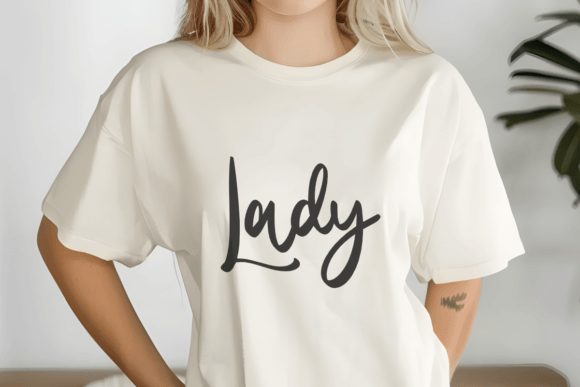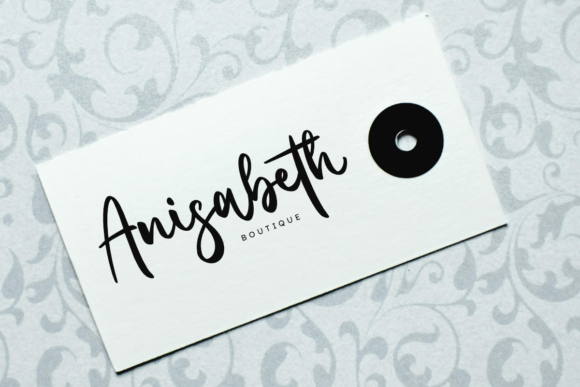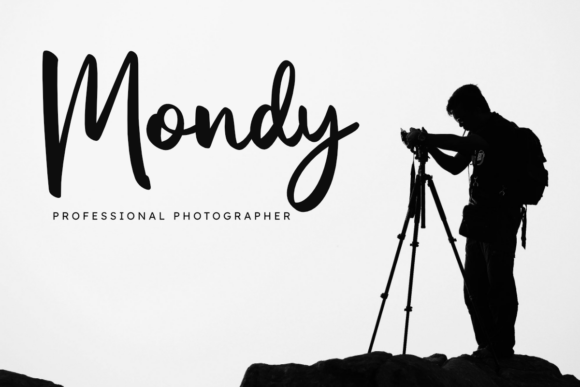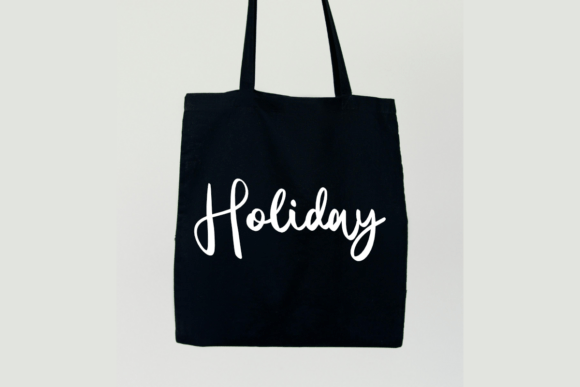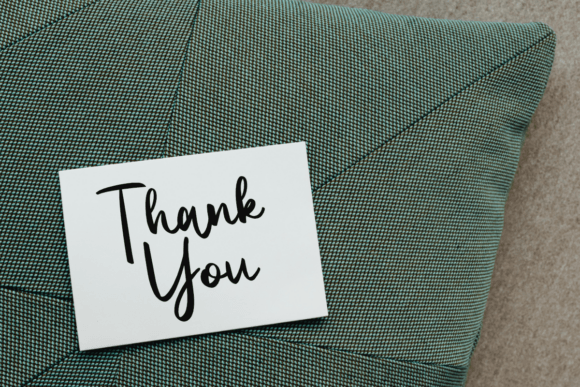
Discover the Elegance of Barley Font: A Perfect Blend of Nature and Modernity
In the world of typography, few fonts manage to capture the essence of both natural elegance and modern sophistication as beautifully as the Barley font. This exquisite typeface presents a delicate fusion of natural calligraphy and contemporary charm, making it an ideal choice for a wide range of design applications, from branding and logos to elegant invitations and more. With its smooth, flowing lines, Barley exudes a refined yet approachable style that is perfect for designers and crafters looking to add a personal, hand-written touch to their creations.
The Unique Characteristics of Barley Font
What sets Barley apart from other fonts is its unique blend of traditional calligraphy and modern design elements. Each letterform is carefully crafted to showcase a sense of fluidity and movement, reminiscent of handwritten calligraphy. Yet, it retains a level of precision and clarity that makes it highly legible, even at smaller sizes. This balance between elegance and readability makes Barley an incredibly versatile font, suitable for a variety of creative projects.
Applications of Barley Font
The versatility of Barley font is one of its most compelling attributes. Its applications are vast and varied, making it a valuable addition to any designer’s toolkit. Here are some of the most popular uses of Barley font:
- Wedding Invitations: The elegant and personal feel of Barley font makes it a perfect choice for wedding invitations. It adds a touch of sophistication and romance, setting the tone for a memorable event.
- Branding and Logos: For businesses looking to establish a brand identity that is both modern and refined, Barley offers a unique solution. Its distinctive character can help a brand stand out in a crowded marketplace.
- Boutique Signage: The refined aesthetic of Barley font makes it ideal for boutique signage, adding a touch of elegance and exclusivity to any storefront or display.
- Sophisticated Packaging: For luxury brands, packaging is a critical element of the brand experience. Barley font can add a level of sophistication and refinement to packaging design, enhancing the perceived value of the product.
Why Designers and Crafters Love Barley Font
Designers and crafters are drawn to Barley font for several reasons. Firstly, its ability to bring a personal, hand-written touch to digital and print designs is unparalleled. In an era where digital communication often lacks a personal feel, Barley font offers a way to add warmth and character to any project. Additionally, its elegance and sophistication make it a go-to choice for high-end designs and luxury brands.
Moreover, the font’s versatility means it can be used across a wide range of projects, from delicate stationery and wedding invitations to sophisticated branding and advertising. Its smooth lines and flowing curves not only make it pleasing to the eye but also highly legible, ensuring that the message is communicated effectively.
Tips for Using Barley Font Effectively
To make the most of Barley font, consider the following tips:
- Pair with Complementary Fonts: While Barley font is beautiful on its own, it can also be paired with other fonts to create a striking contrast. Choose fonts that complement its elegant and flowing style.
- Adjust Letter Spacing: For optimal readability, pay attention to letter spacing. Barley font looks best with slightly increased letter spacing, which enhances its elegant feel.
- Consider Size and Weight: Experiment with different sizes and weights of Barley font to add depth and hierarchy to your design.
| Font Name | Barley Font |
| Author | Font-Tastic |
The Barley font is a true gem in the world of typography, offering a perfect blend of natural elegance and modern sophistication. Its smooth, flowing lines and refined character make it an ideal choice for designers and crafters looking to add a touch of elegance and personality to their creations. Whether you’re working on a wedding invitation, a branding project, or sophisticated packaging, Barley font is sure to elevate your design to new heights of elegance and refinement.
With its versatility, elegance, and approachability, Barley font is a valuable tool for anyone looking to create beautiful, impactful designs. As you explore the possibilities of this exquisite typeface, you’re sure to discover new and exciting ways to bring your creative visions to life.